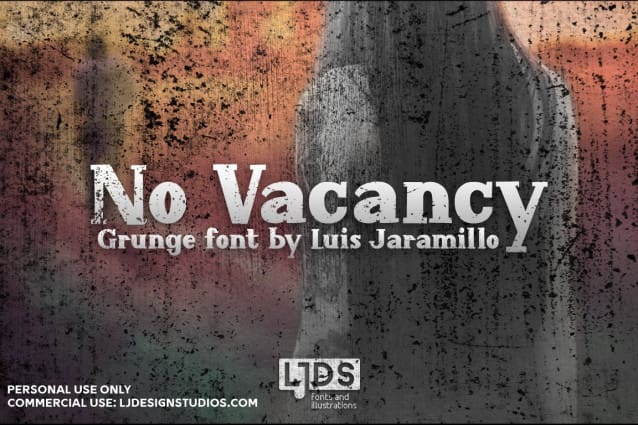
No Vacancy Font
No Vacancy fonts is a collection of fonts with an unusual theme from LJ Design Studios, its design contains: regular, grunge and stroke-only versions, it is quite decorative and can be suited for almost any art purposes.